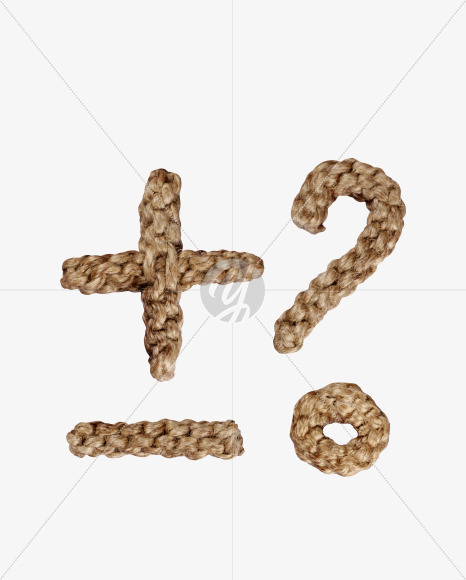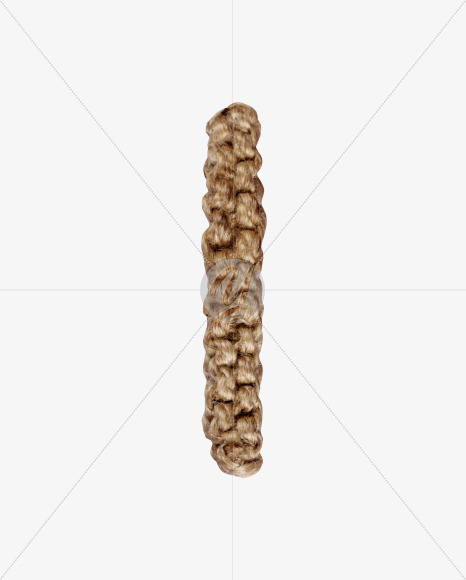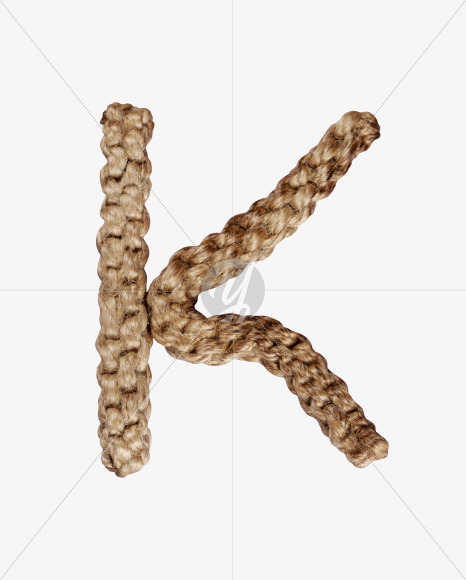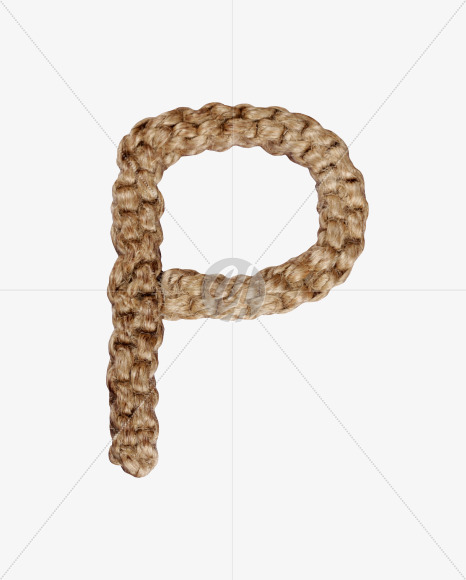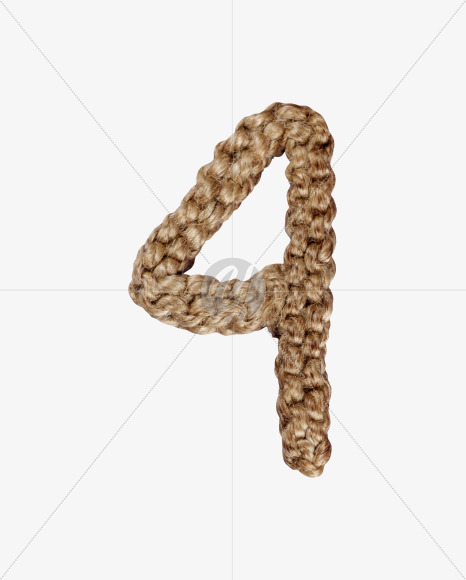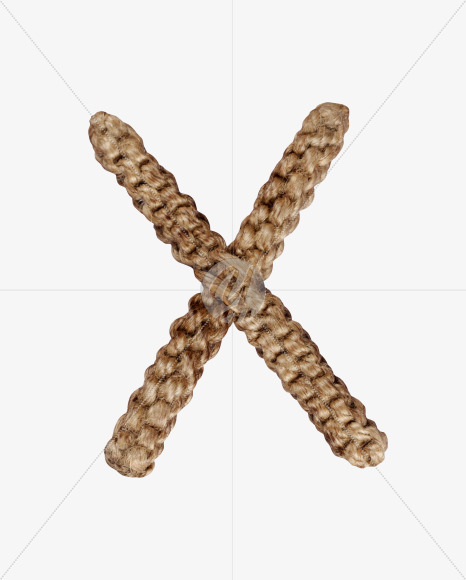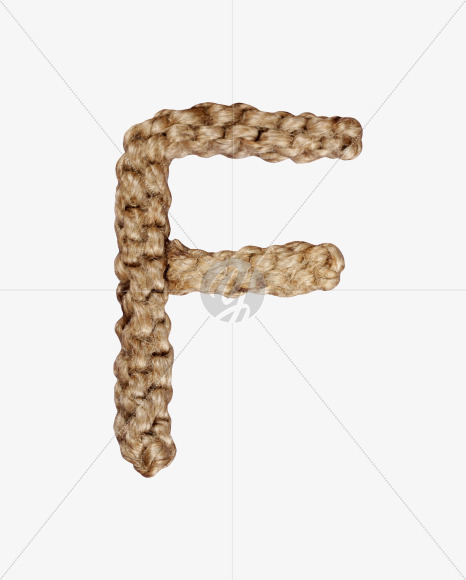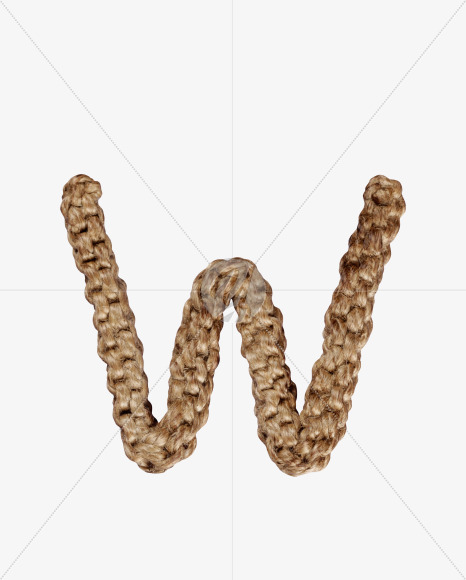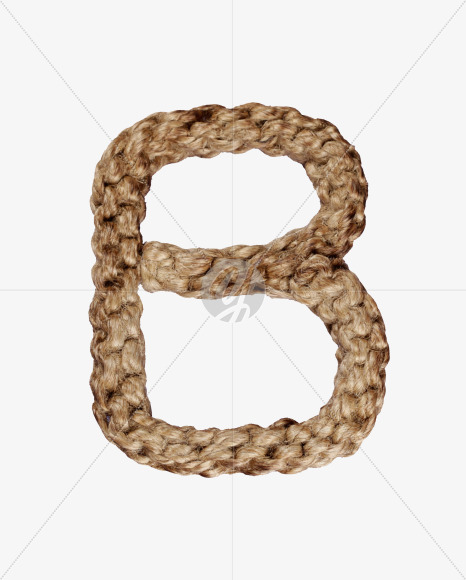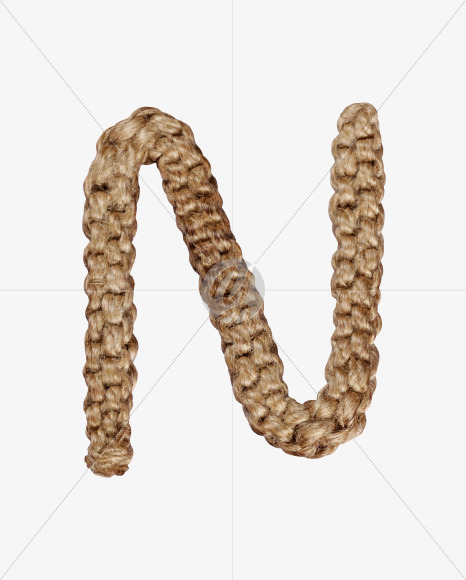
Weaving Rope Font is a handmade font of rope typography division. This creative typeface is a good and reliable friend in the hour of need. When you have a feeling that you have reached the end of your rope and have no inspiration at all you should hold on to Weaving Rope Font. Grab it and don’t let go. The brown alphabet will pull you out of desperation and give you fresh ideas with its sweet handcrafted appeal.